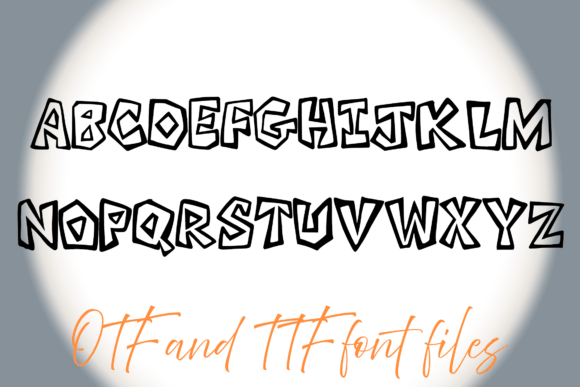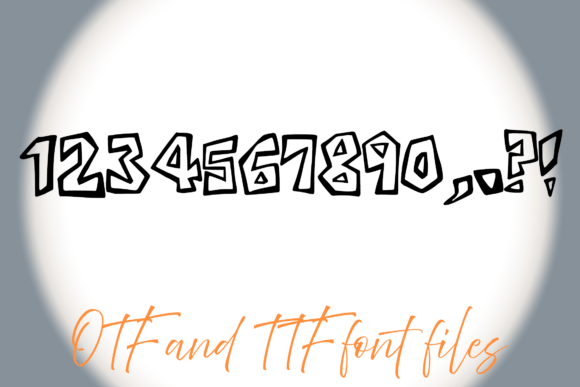
Meet Your New BFF: The Jagged Cartoon Font
Remember the thrill of discovering a new favorite comic book or cartoon as a kid? The excitement of diving into a world of colorful characters and quirky storytelling? That same magic is what drives designers to create captivating brand identities and playful designs – and that’s exactly what the Jagged Cartoon Font is all about.
This bold, quirky display font is specifically designed for comic books, kids’ designs, and playful branding. With its spiky, hand-drawn letterforms and comic-style flair, the Jagged Cartoon Font grabs attention and delivers fun in every character. Whether you’re working on a new comic book series or a kids’ app, this font is the perfect addition to your design toolkit.
As a designer, you know the importance of choosing the right font to convey your message and evoke the right emotions. The Jagged Cartoon Font is a valuable addition to any designer’s arsenal, offering creative versatility and endless possibilities for fun and engaging designs.
Jagged Cartoon Font Key Features
- Jagged Edges: Characterized by its distinctive jagged edges, giving the font a playful and cartoon-like appearance.
- Unique Characters: Includes a range of unique characters, such as handwritten-style numbers and special symbols, to add personality to your designs.
Jagged Cartoon Font Review
Overall, I think the Jagged Cartoon Font is a fun and quirky option for those looking for a playful, hand-drawn feel in their design. ✨
- The font’s unique, jagged lines give it a distinctive and memorable look that’s perfect for eye-catching headings or logos.
- The font’s irregularities also make it feel more human and less robotic, which can be a nice change of pace from more uniform sans-serif fonts.
- The font is highly customizable, with a range of weights and styles to choose from, making it easy to adapt to different design needs.
- ⚠️ The font’s irregularities can sometimes make it difficult to read, particularly in larger blocks of text.
- ⚠️ The font may not be the best choice for formal or professional designs, as its playful feel can come across as unpolished or immature.
In terms of overall impression, I think the Jagged Cartoon Font is a solid choice for those looking for a fun and quirky font. However, it’s not without its limitations, and designers should be aware of these before using it in their work.
Use the Jagged Cartoon Font to add a playful touch to your designs.
Combine it with bold colors and creative graphics to create eye-catching visuals.
Experiment with different font sizes and styles to achieve the desired effect.
The Jagged Cartoon Font is ideal for:
Children’s book illustrations
Party invitations and decorations
Advertising and promotional materials
Graphic novels and comic strips
Alternatives to Jagged Cartoon Font
Comic Sans MS is a popular sans-serif font designed to mimic handwriting. It is ideal for informal and casual designs, such as children’s books, advertisements, and social media graphics. Comic Sans MS has a more rounded and friendly appearance compared to Jagged Cartoon Font, which has a more edgy and bold look.
Great Vibes is a script font with a fun and playful feel. It is suitable for designs that require a sense of excitement and energy, such as music festival posters, party invitations, and social media promotions. Great Vibes has a more fluid and organic appearance compared to Jagged Cartoon Font, which has a more geometric and jagged look.
Pacifico is a modern script font with a relaxed and beachy vibe. It is ideal for designs that require a sense of calmness and sophistication, such as travel brochures, restaurant menus, and product packaging. Pacifico has a more elegant and refined appearance compared to Jagged Cartoon Font, which has a more playful and bold look.
Q: Can I customize the color and style of Jagged Cartoon Font?
Yes, you can customize the color and style of Jagged Cartoon Font using various design tools and software. You can change the font color, add drop shadows, or use other design effects to create a unique look. However, it’s essential to ensure that any customizations do not compromise the font’s legibility or readability.